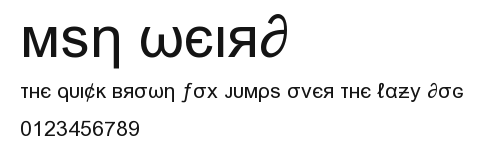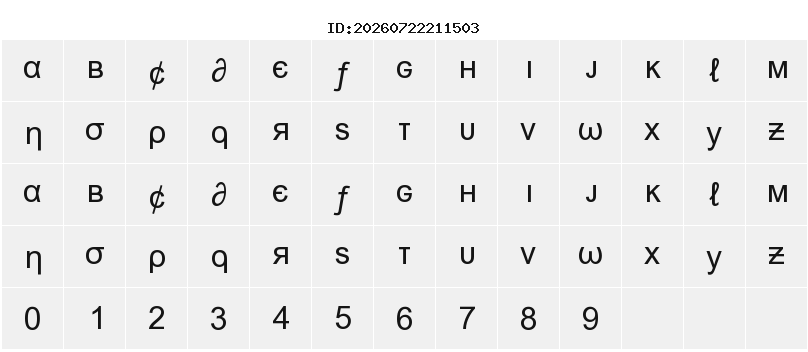
• Font Name: Msn Weird
• Full Font Name: Msn Weird
• Version: Version 1.00 October 29, 2007, initial release
• PostScript Name: MsnWeird
About Msn Weird.ttf
Msn Weird.ttf is a modern, elegant sans-serif font designed for ultimate readability and visual harmony. Perfect for branding, headlines, web design, and print materials.